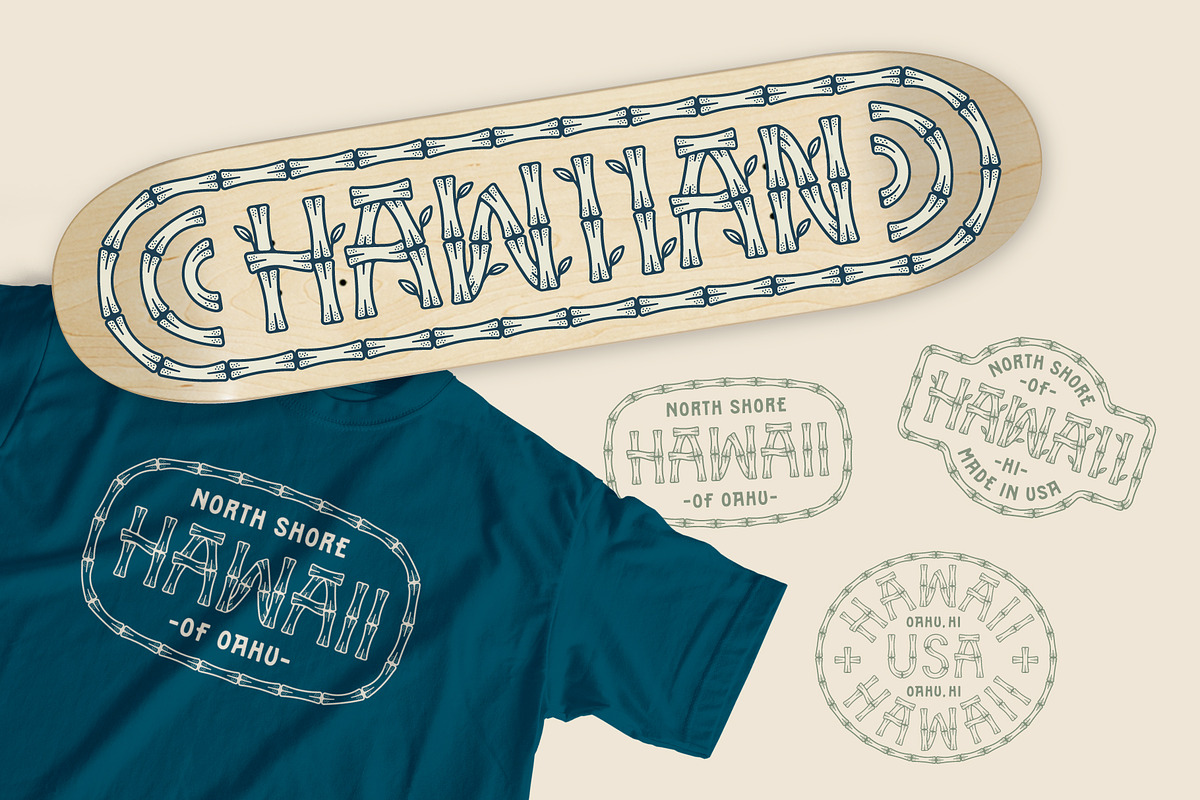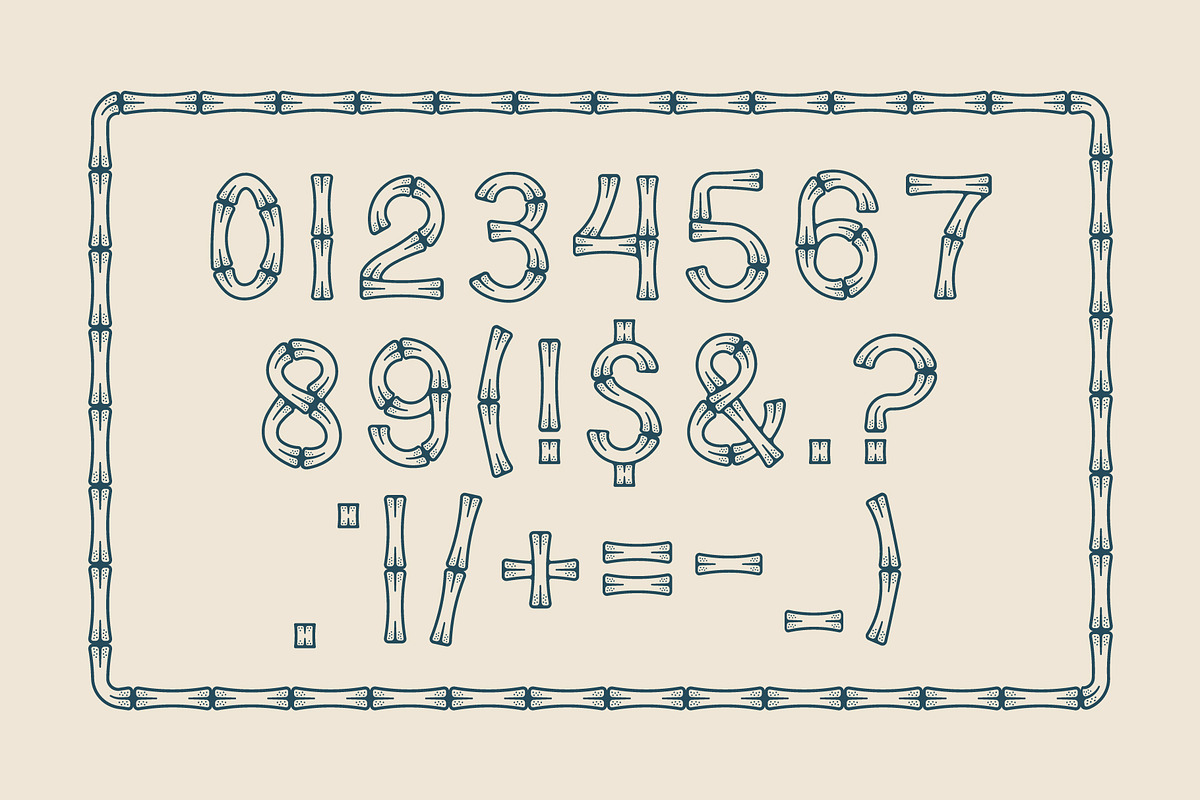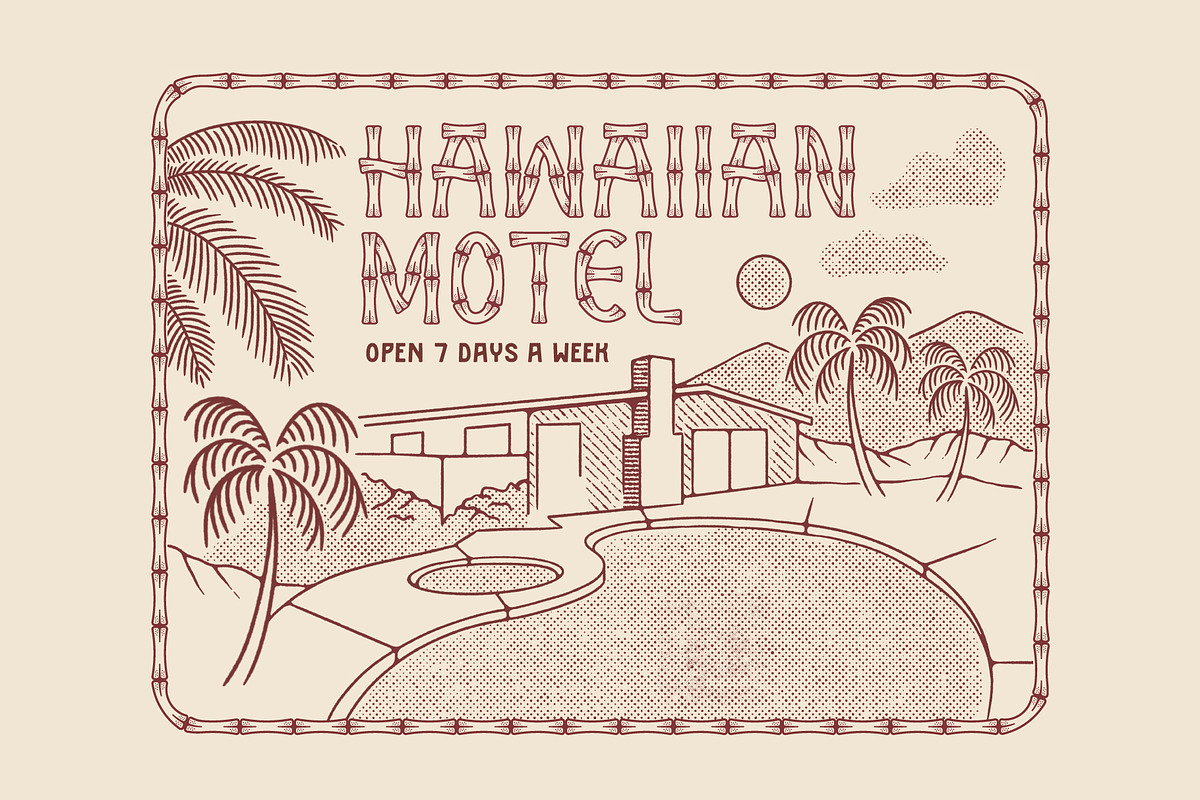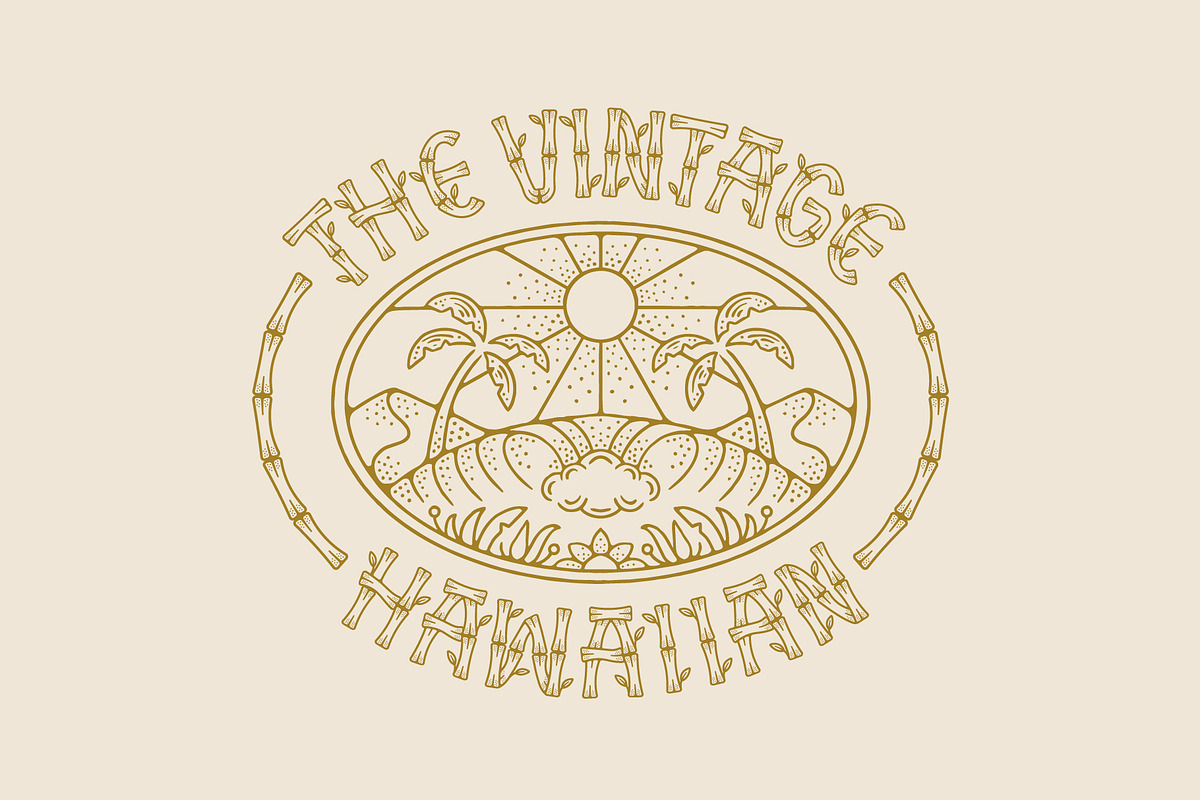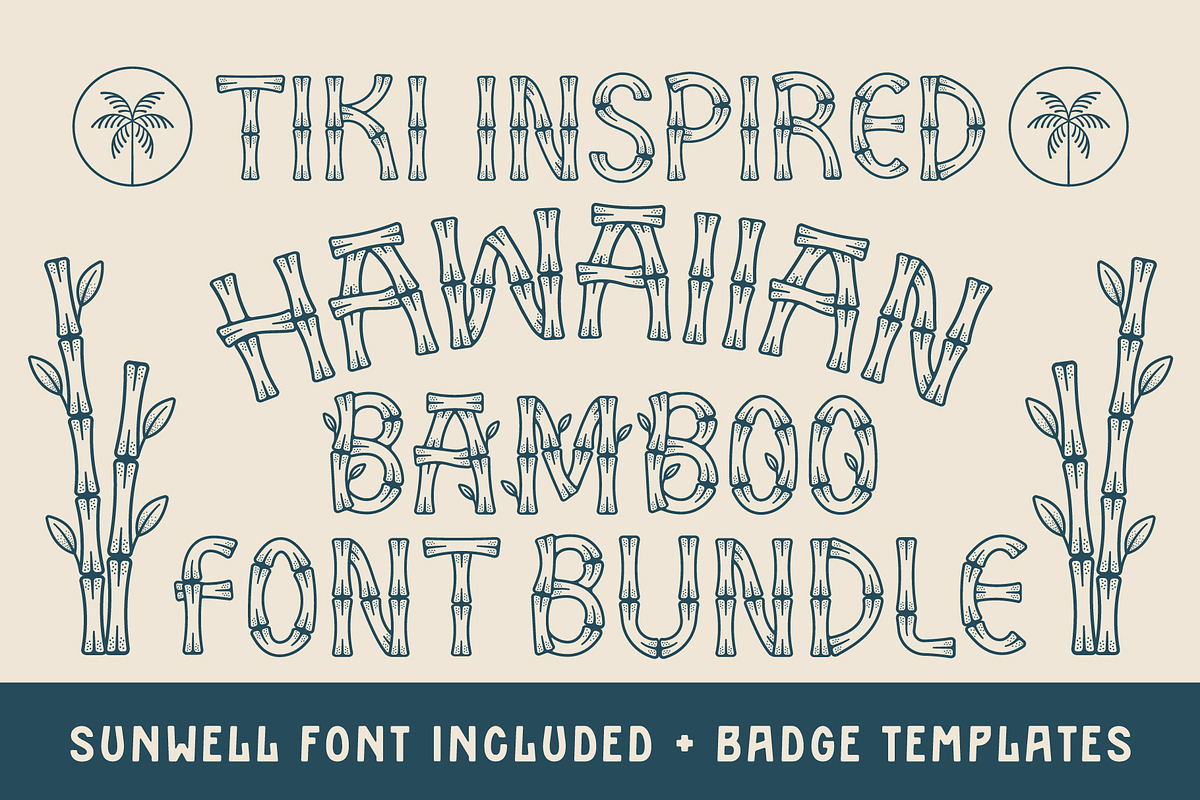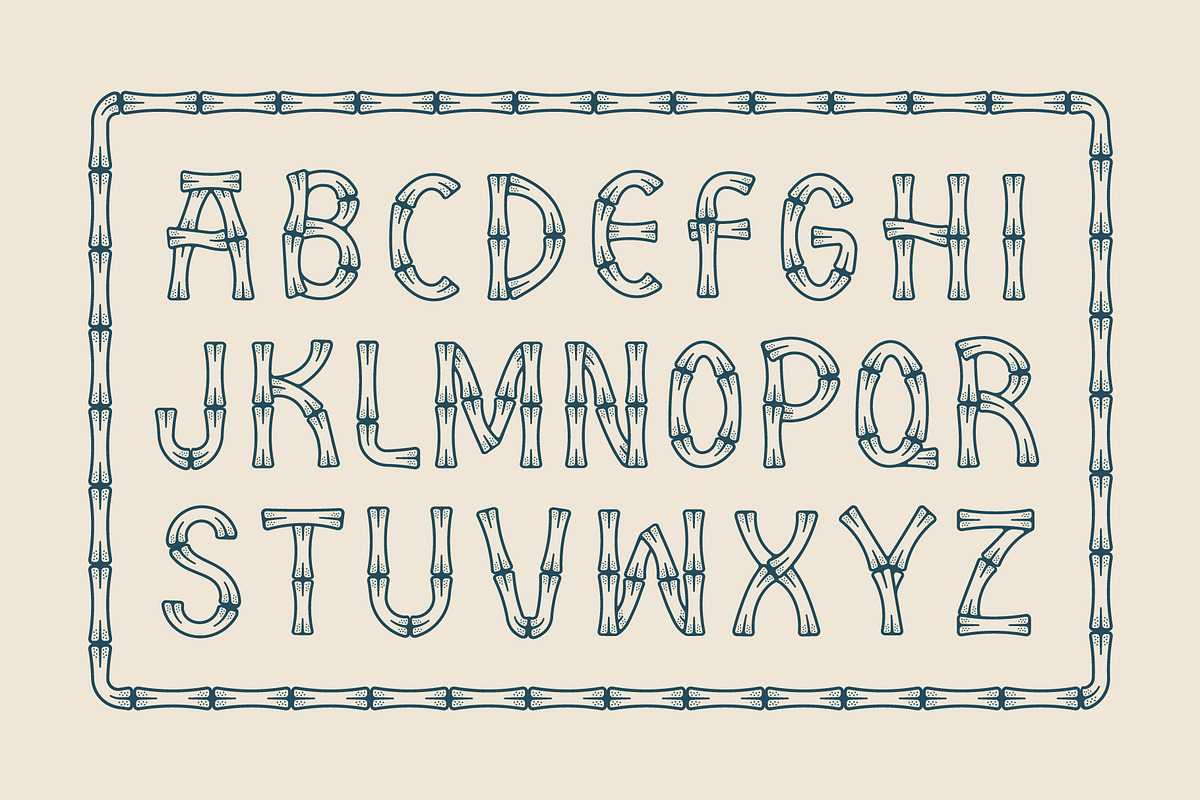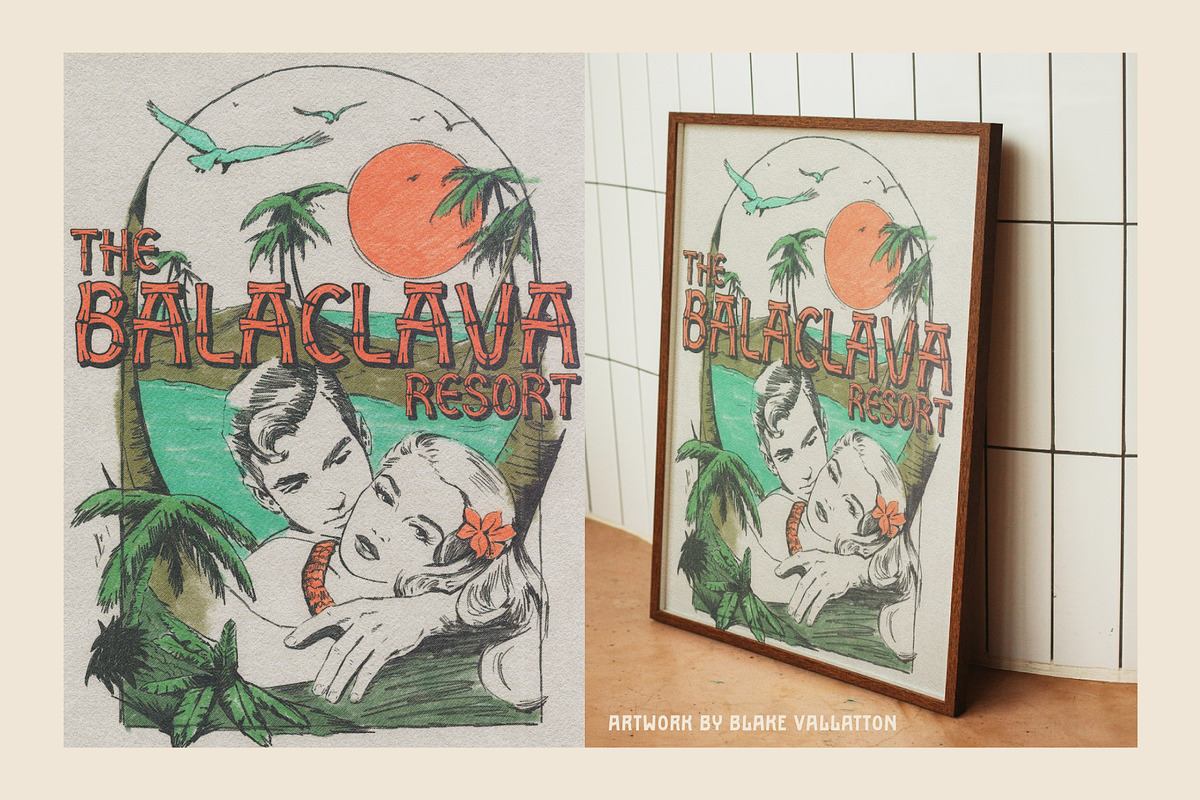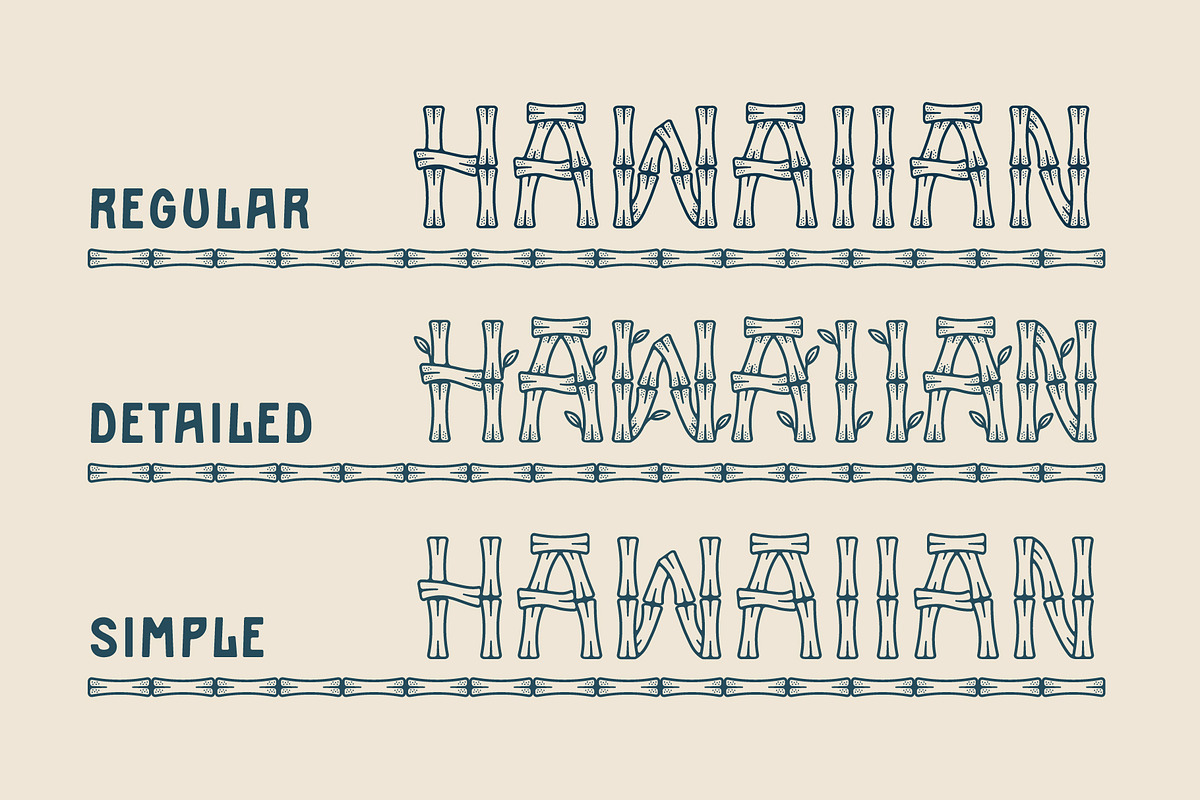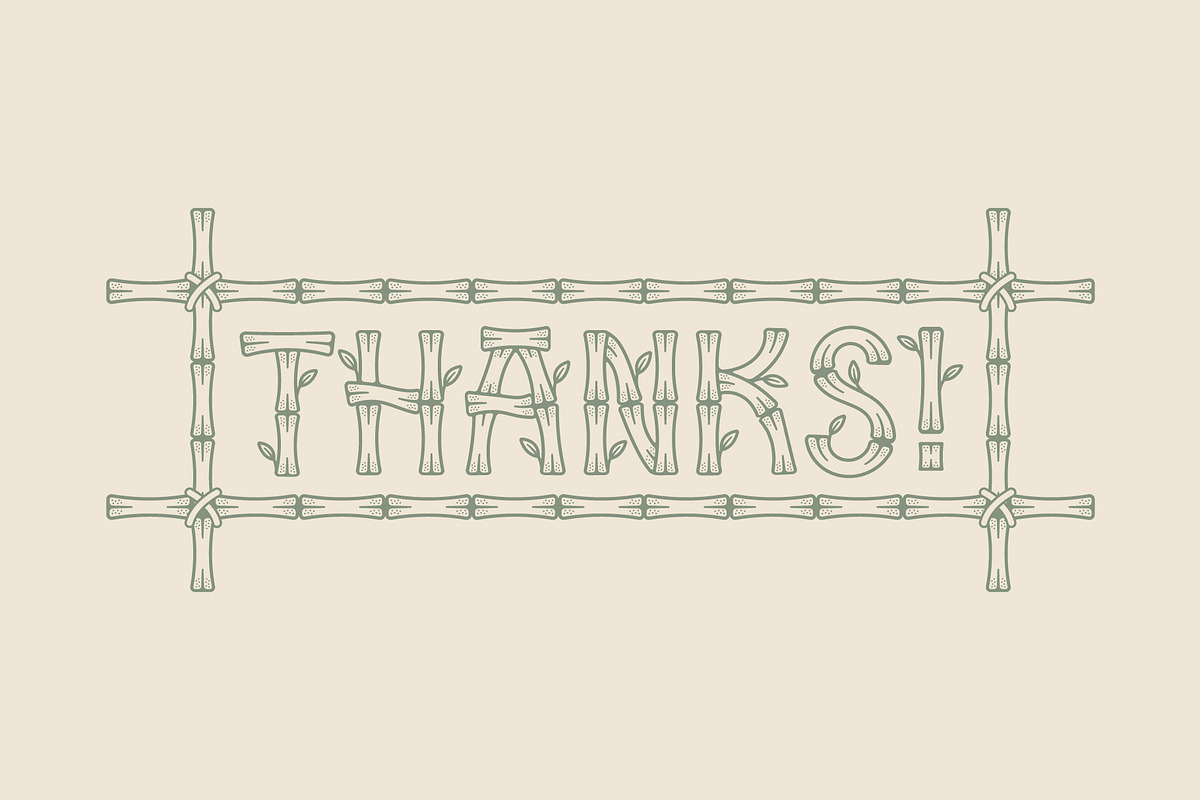
Hawaiian Bamboo Font Duo
Introducing the Hawaiian Bamboo Font Bundle! This bundle is packed with:
- 3x Hawaiian Type Styles (Regular, Detailed & Simple)
- 3x Sunwell Type Styles (Regular, Alt Regulat & Italic)
The Hawaiian Bamboo font is a display typeface that captures the vintage tiki vibe through the use of its organic & natural letterforms. Slap this typeface on your designs to quickly bring in some of that vintage island look. This bundle includes 3 typefaces and 8 pre made badge templates that work seamlessly with the font as well as the bamboo brush for illustrator.
I also wanted to include a font that pairs well with the Hawaiian Bamboo font, so as a bonus, all 3 Sunwell type styles are included in this bundle and work great as a secondary font.